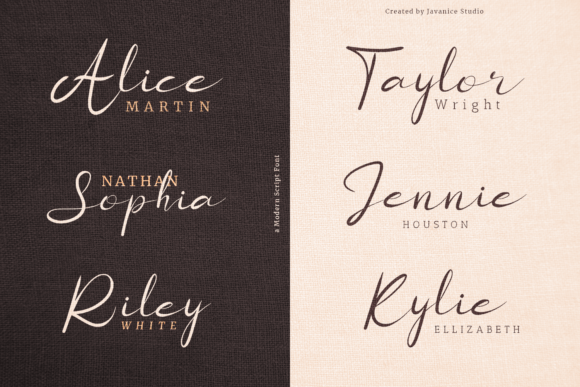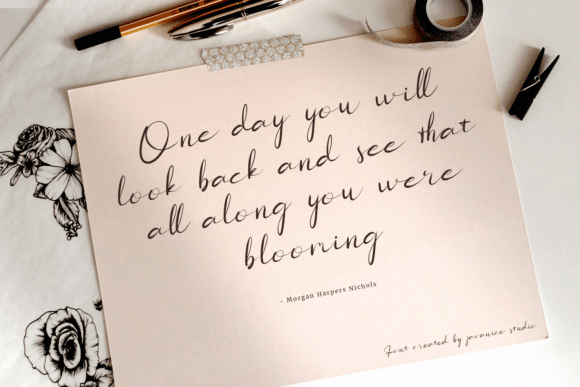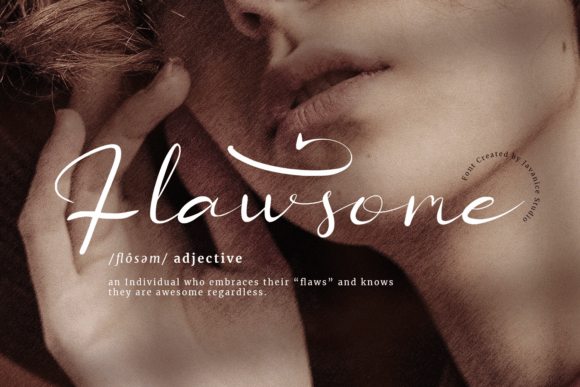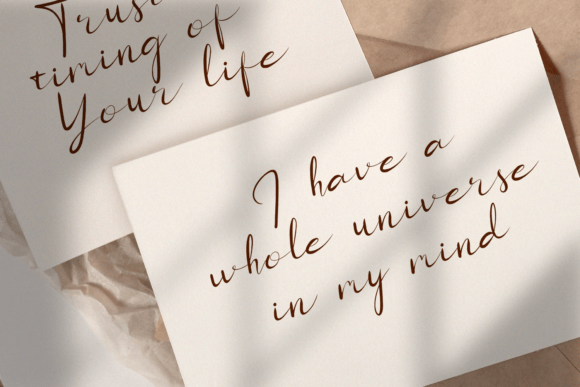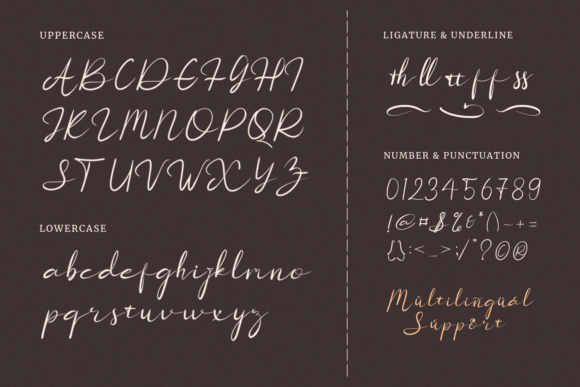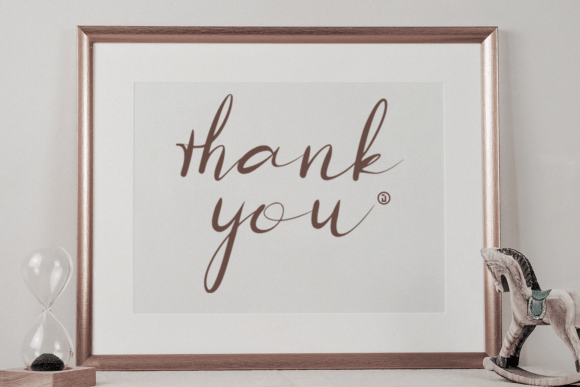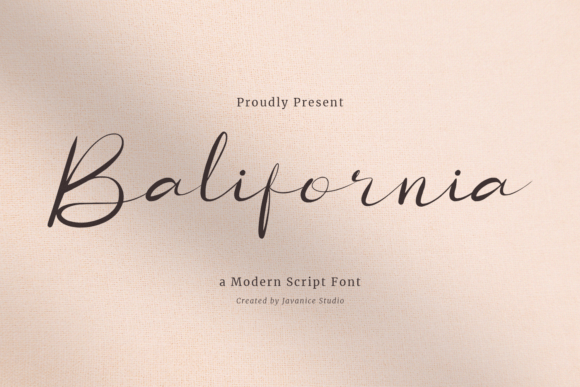
Introducing Balifornia Font: The Ultimate Modern Script Font for Designers and Crafters
In the world of typography, a good font can make all the difference in the success of a design project. For designers and crafters looking for a modern script font that exudes elegance and sophistication, look no further than Balifornia Font. This stunning font is perfect for a wide range of applications, from branding and advertising to crafting and DIY projects.
What is Balifornia Font?
Balifornia Font is a modern script font designed to add a touch of luxury and glamour to any design project. Its flowing lines, elegant curves, and sophisticated style make it perfect for projects that require a high-end look and feel. Whether you’re working on a branding project, creating custom apparel, or designing labels and packaging, Balifornia Font is the perfect choice.
Key Features of Balifornia Font
- Modern Script Style: Balifornia Font features a modern script style that is both elegant and sophisticated.
- Highly Versatile: This font is perfect for a wide range of applications, from branding and advertising to crafting and DIY projects.
- Elegant Curves: The flowing lines and elegant curves of Balifornia Font make it perfect for projects that require a touch of luxury and glamour.
- Easy to Read: Despite its elegant style, Balifornia Font is highly legible and easy to read, making it perfect for body text and headlines.
Use Cases for Balifornia Font
Balifornia Font is perfect for a wide range of design projects, including:
- Branding Projects: Use Balifornia Font to create a luxurious and sophisticated brand identity that will leave a lasting impression on your customers.
- Apparel and Fashion: Add a touch of glamour to your apparel and fashion designs with Balifornia Font, perfect for creating custom t-shirts, hoodies, and more.
- Labels and Packaging: Use Balifornia Font to create elegant and sophisticated labels and packaging that will make your products stand out on store shelves.
- Magazines and Books: Add a touch of luxury to your magazine and book designs with Balifornia Font, perfect for creating elegant headlines and body text.
- Greeting and Wedding Cards: Use Balifornia Font to create beautiful and elegant greeting and wedding cards that will make a lasting impression on your loved ones.
- Stationery and Makeup: Add a touch of glamour to your stationery and makeup designs with Balifornia Font, perfect for creating custom business cards, letterheads, and more.
Why Choose Balifornia Font?
With so many fonts to choose from, why should you choose Balifornia Font for your next design project? Here are just a few reasons:
- Unique and Elegant Style: Balifornia Font features a unique and elegant style that will add a touch of luxury and sophistication to any design project.
- Highly Versatile: This font is perfect for a wide range of applications, making it a great addition to any designer’s font library.
In conclusion, Balifornia Font is the perfect modern script font for designers and crafters looking to add a touch of luxury and sophistication to their design projects. With its elegant curves, flowing lines, and highly versatile style, this font is perfect for a wide range of applications. Whether you’re working on a branding project, creating custom apparel, or designing labels and packaging, Balifornia Font is the perfect choice. So why wait? Download Balifornia Font today and take your design projects to the next level!